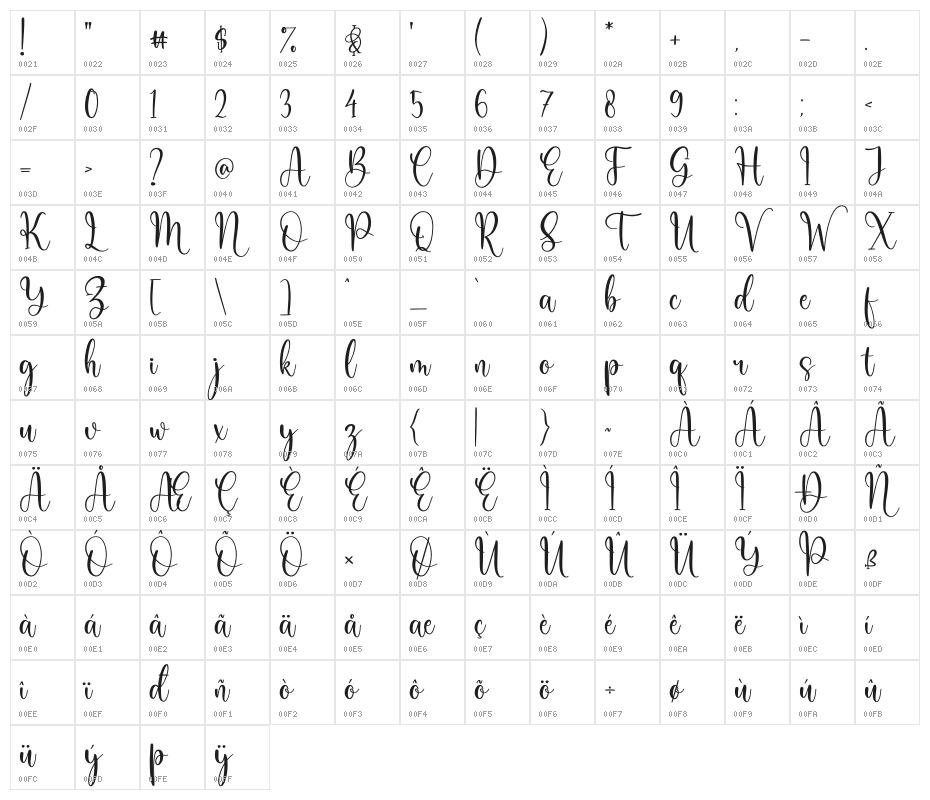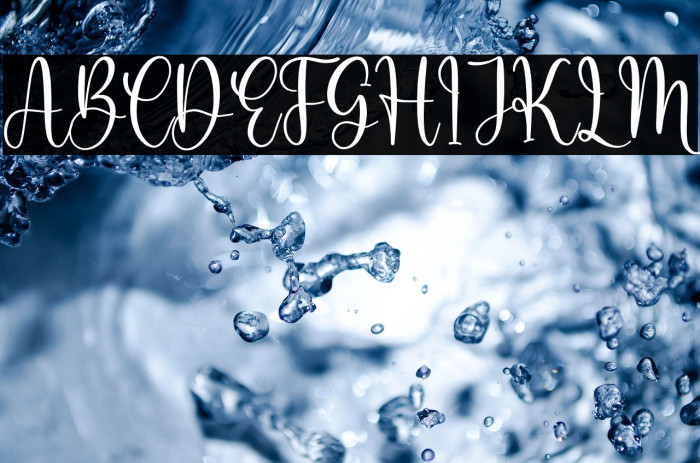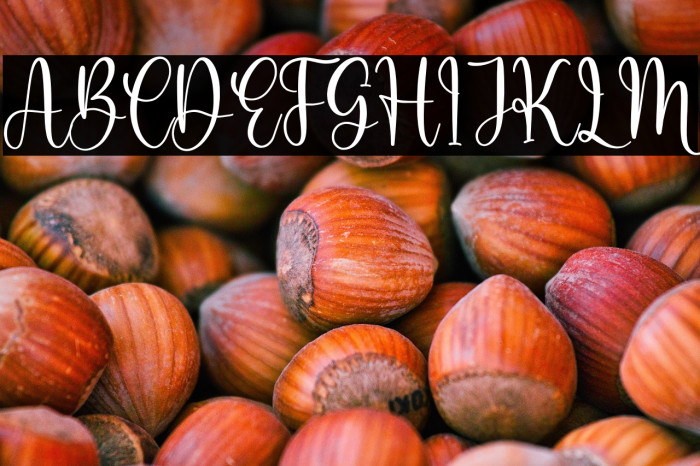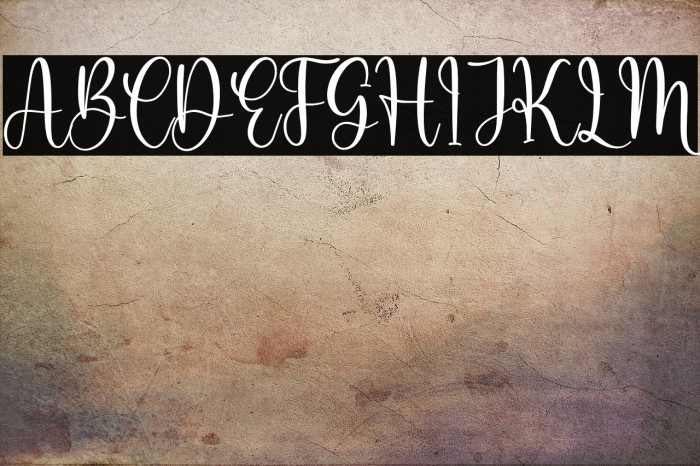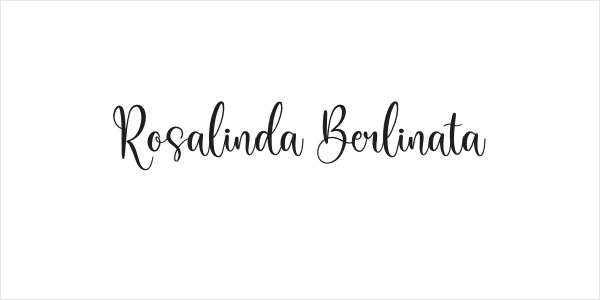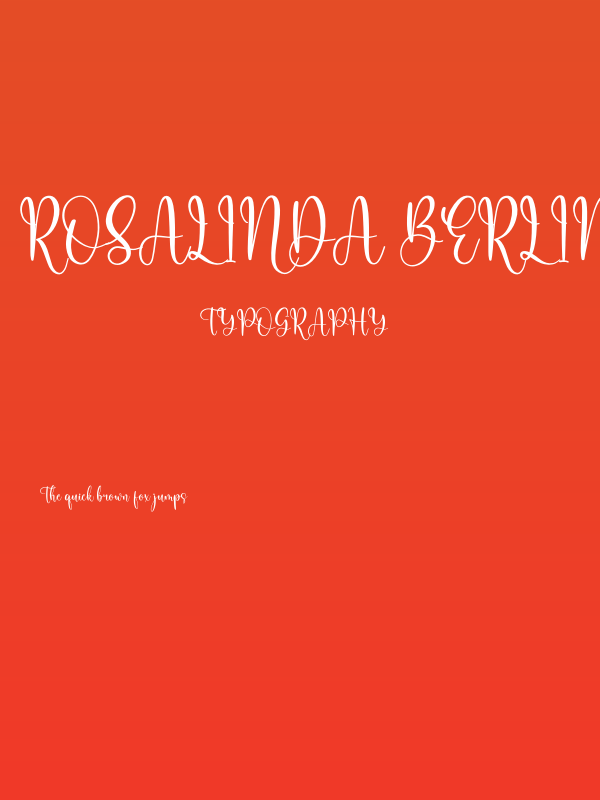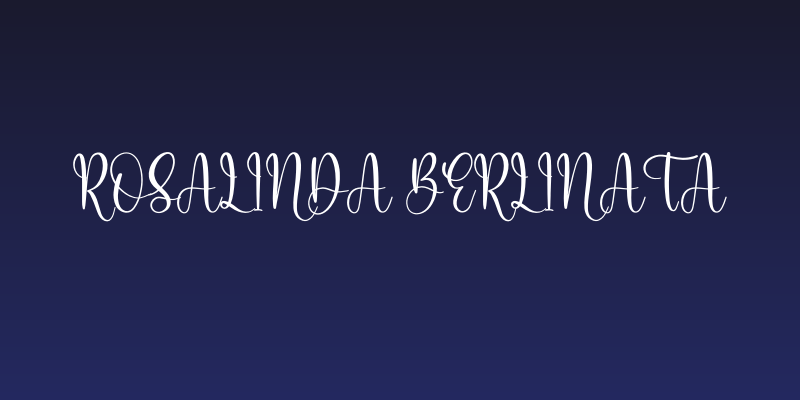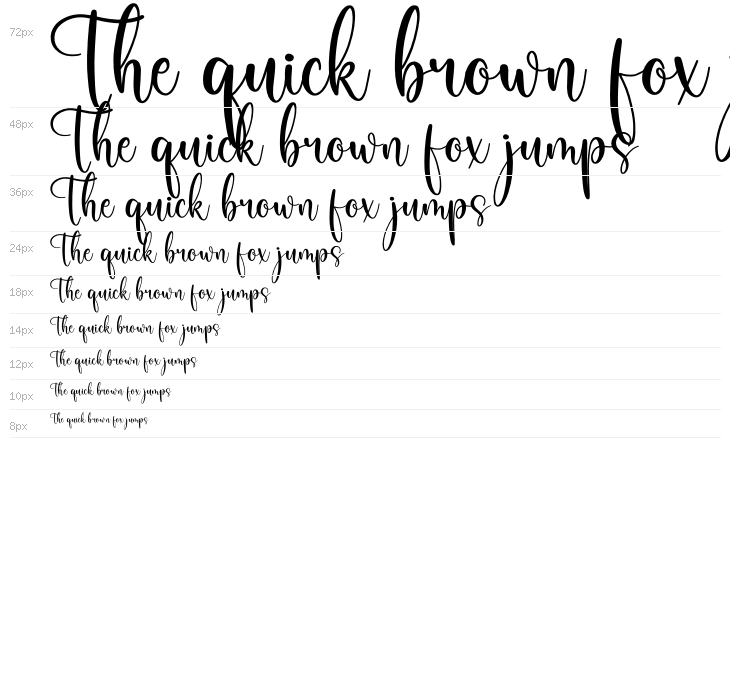
Rosalinda Berlinata Font
Rosalinda Berlinata Description
This font features an elegant and flowing script style, characterized by its smooth, cursive strokes and a sense of fluidity. The uppercase letters are tall and graceful, with loops and swirls that add a touch of sophistication. The lowercase letters maintain a consistent flow, with some letters featuring unique flourishes that enhance the overall aesthetic. The numerals are designed to match the script style, offering a cohesive look. Special characters are included, each crafted with the same attention to detail and elegance. This font is perfect for projects that require a touch of class and elegance.